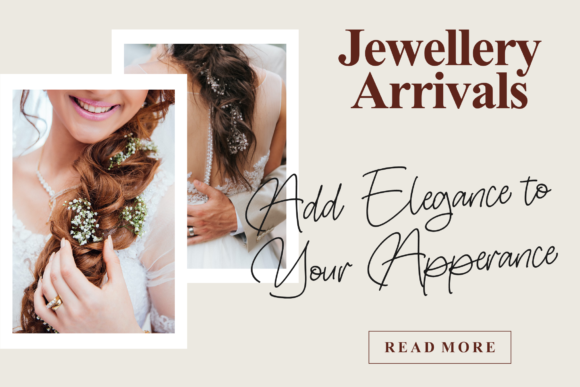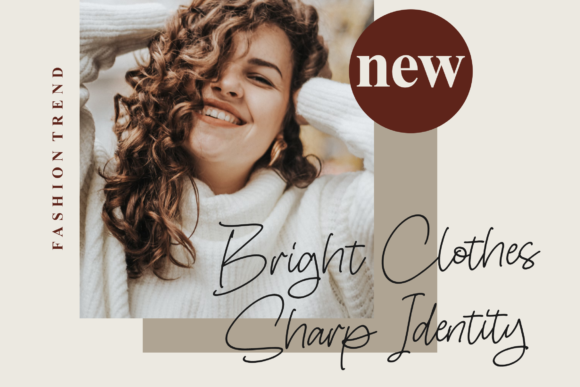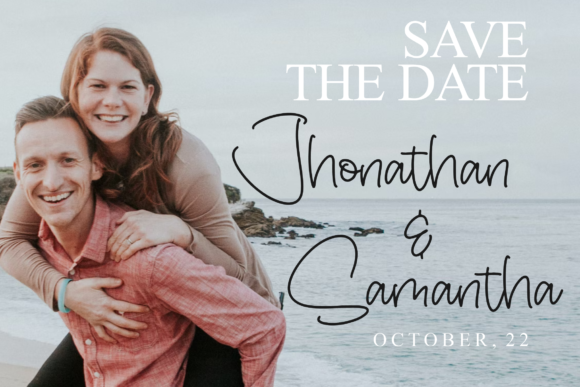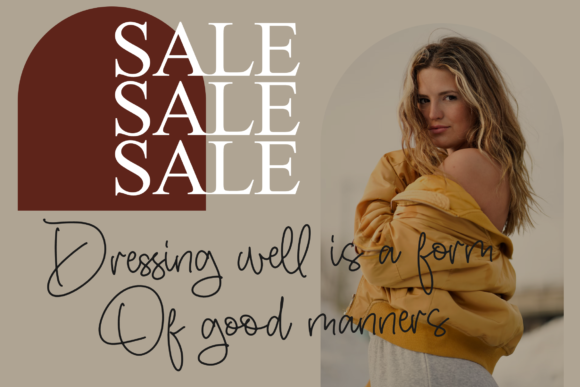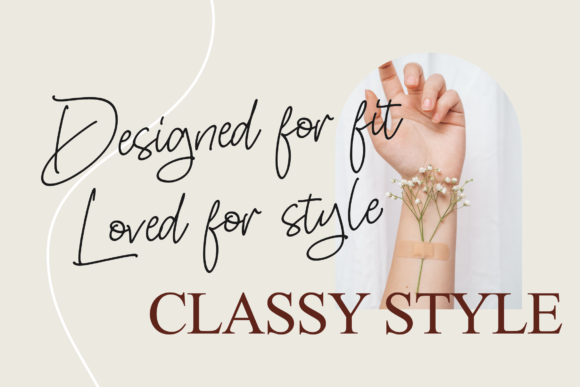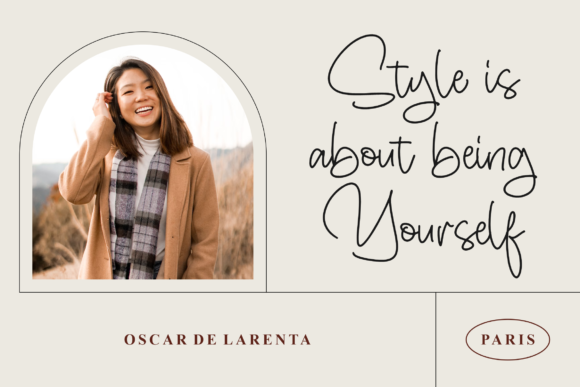
Introducing Amisha Rose Font: The Elegant Monoline Script Font for Your Creative Projects
Are you a designer or crafter looking for a beautiful script font to elevate your creative projects? Look no further than Amisha Rose Font, a stunning monoline script font from Perspectype Studio. This gorgeous font is perfect for a wide range of projects, from logos and branding to homeware designs, product packaging, and more.
What is Amisha Rose Font?
Amisha Rose Font is a monoline script font that features elegant, flowing lines and a sophisticated aesthetic. This font is designed to add a touch of luxury and refinement to any project, making it perfect for designers and crafters who want to create high-end designs. With its clean and simple lines, Amisha Rose Font is versatile and easy to use, making it suitable for a wide range of applications.
What Can I Use Amisha Rose Font For?
Amisha Rose Font is incredibly versatile and can be used for a variety of projects, including:
• Logos and branding projects: Create a professional and sophisticated brand identity with Amisha Rose Font.
• Homeware designs: Add a touch of elegance to your homeware designs, such as ceramics, textiles, and wallpaper.
• Product packaging: Make your product packaging stand out with the beautiful and refined lines of Amisha Rose Font.
• Mugs and ceramics: Create stunning mugs, tumblers, and ceramics with Amisha Rose Font.
• Quotes and posters: Add a touch of sophistication to your quotes and posters with this gorgeous font.
• Shopping bags and packaging: Elevate your brand’s packaging with Amisha Rose Font.
• T-shirts and apparel: Create beautiful and stylish t-shirts and apparel with Amisha Rose Font.
• Book covers and journals: Add a touch of elegance to your book covers and journals with this stunning font.
• Name cards and invitation cards: Create beautiful and sophisticated name cards and invitation cards with Amisha Rose Font.
• Greeting cards and label: Use Amisha Rose Font to create stunning greeting cards and labels.
• Photography and watermark: Add a touch of refinement to your photography with Amisha Rose Font.
• Special events: Use Amisha Rose Font to create beautiful and memorable designs for special events, such as weddings and anniversaries.
Why Choose Amisha Rose Font?
There are many reasons why Amisha Rose Font is a great choice for designers and crafters. Here are just a few:
• Elegant and sophisticated: Amisha Rose Font features elegant and sophisticated lines that will elevate any project.
• Versatile: This font is suitable for a wide range of projects, from logos and branding to homeware designs and product packaging.
• Easy to use: Amisha Rose Font is clean and simple to use, making it perfect for designers and crafters of all levels.
• High-quality: This font is designed to provide high-quality results, ensuring that your designs look professional and polished.
• Experiment with different sizes and colors: Amisha Rose Font looks great in a variety of sizes and colors, so don’t be afraid to experiment.
• Pair with other fonts: Amisha Rose Font pairs well with other fonts, such as sans-serif fonts and serif fonts.
• Use for headlines and body text: Amisha Rose Font is suitable for both headlines and body text, making it a great choice for a wide range of projects.
Amisha Rose Font is a beautiful and versatile monoline script font that is perfect for designers and crafters. With its elegant and sophisticated lines, this font is suitable for a wide range of projects, from logos and branding to homeware designs and product packaging. Whether you’re looking to create a professional brand identity or add a touch of luxury to your designs, Amisha Rose Font is a great choice.